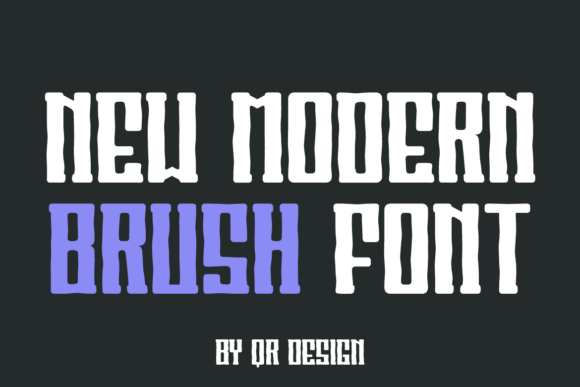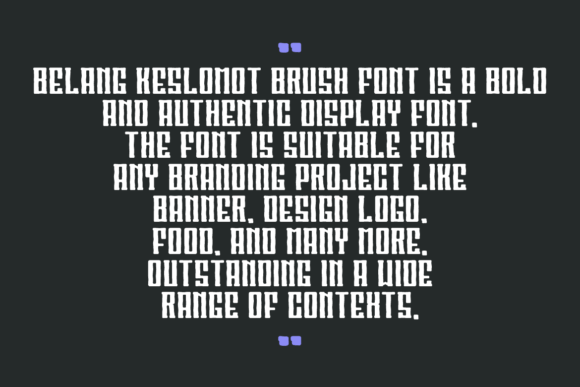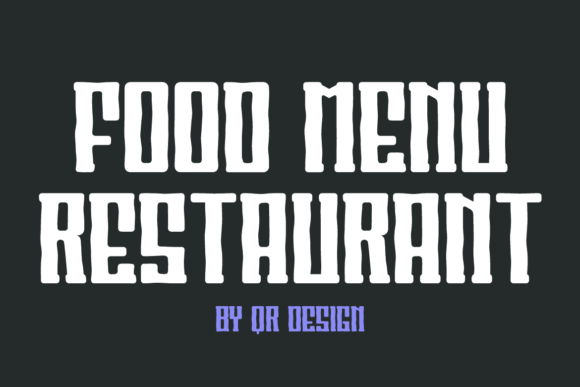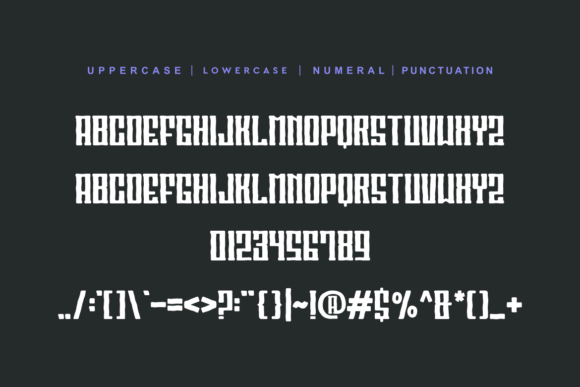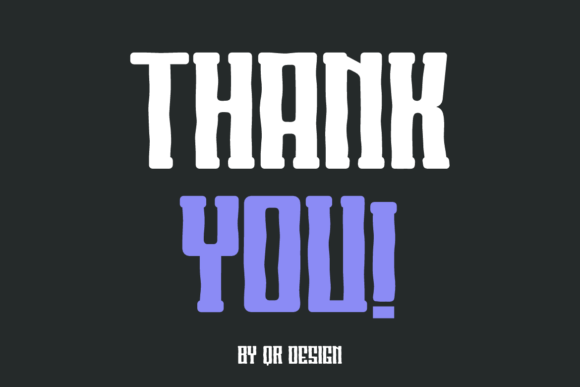
The Perfect Font for Your Next Big Design Project
Do you remember that moment when you finally nailed the perfect design for your client? The one that made you jump out of your seat and shout “Yes, this is it!”? For designers, those moments are what keep us going, and they’re often the result of finding the perfect font to bring our vision to life.
Enter Belang Keslomot Brush Font, a bold and authentic display font that’s about to become your new go-to for branding projects. Whether you’re designing a logo, creating a t-shirt design, or working on a sports-related project, this font is sure to make a statement. Its versatility and uniqueness make it an invaluable asset for any designer looking to add some personality to their work.
Belang Keslomot Brush Font Key Features
- Font Family: Belang Keslomot, a unique brush font with a handwritten feel.
- Unique Characteristics: Features a distinctive brush stroke effect, giving it a hand-drawn look and feel, ideal for creative and artistic projects.
Designer Review: Belang Keslomot Brush Font
I was excited to dive into the Belang Keslomot Brush Font, but my experience was a mixed bag. Here’s what I liked and didn’t like.
- ✨ Unique brush font style: The Belang Keslomot Brush Font has a distinctive hand-drawn feel that sets it apart from other fonts.
- ✨ High-quality glyphs: The font includes a wide range of glyphs, including international characters and symbols.
- ✨ Versatile: The font works well for both digital and print applications, making it a great choice for designers who need a flexible font.
- ⚠️ Limited font weights: The font only includes a few font weights, which may limit its use in certain applications.
- ⚠️ Not ideal for small text: The brush font style can make small text difficult to read, which may be a limitation for designers who need to use the font in body text.
- ⚠️ Not as customizable as other fonts: The font’s brush style can be difficult to customize, which may limit its use in certain design applications.
Overall, the Belang Keslomot Brush Font is a unique and versatile font that can add a touch of personality to designs. However, its limitations may make it less suitable for certain applications. I would recommend this font for designers who need a distinctive brush font style for headings, titles, or other display text.
Belang Keslomot Brush Font is perfect for creating hand-drawn, whimsical designs. Use it for:
- Handwritten-style quotes and phrases.
- Children’s book illustrations.
- Personalized invitations and cards.
- Artistic typography and quotes.